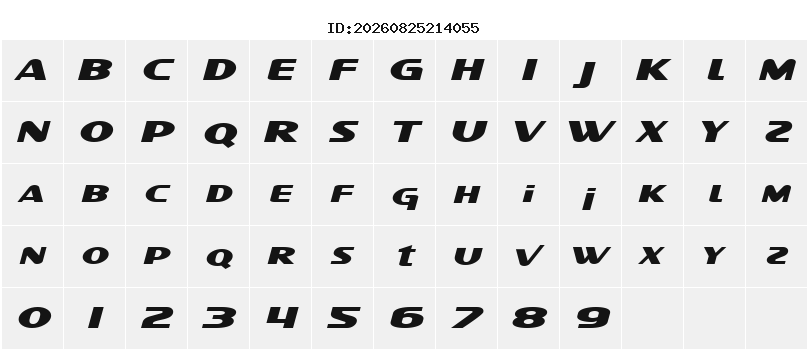
SF Intellivised Extended Preview
• Font Name: SF Intellivised Extended
• Full Font Name: SF Intellivised Extended Italic
About SF Intellivised Extended.ttf
SF Intellivised Extended.ttf is a modern, elegant sans-serif font designed for ultimate readability and visual harmony. Perfect for branding, headlines, web design, and print materials.